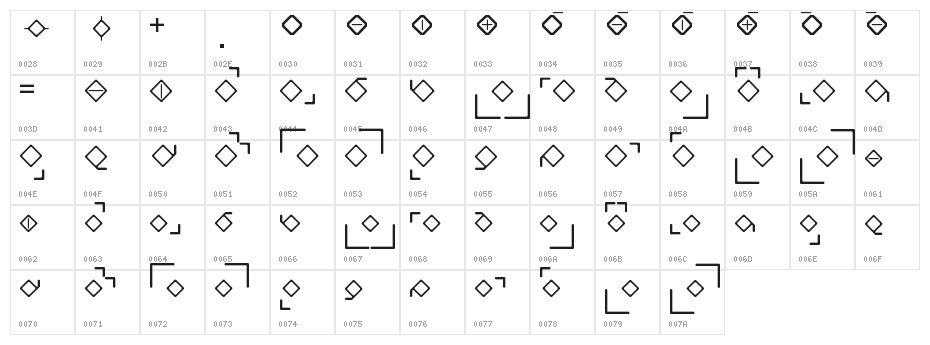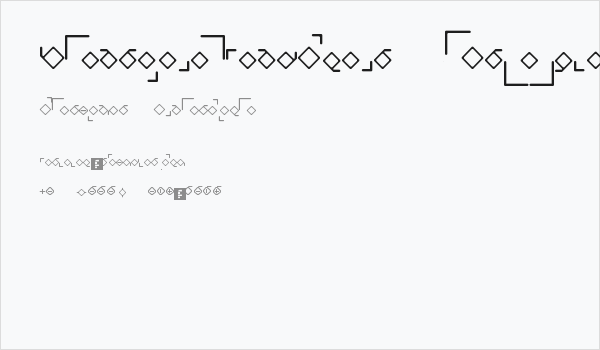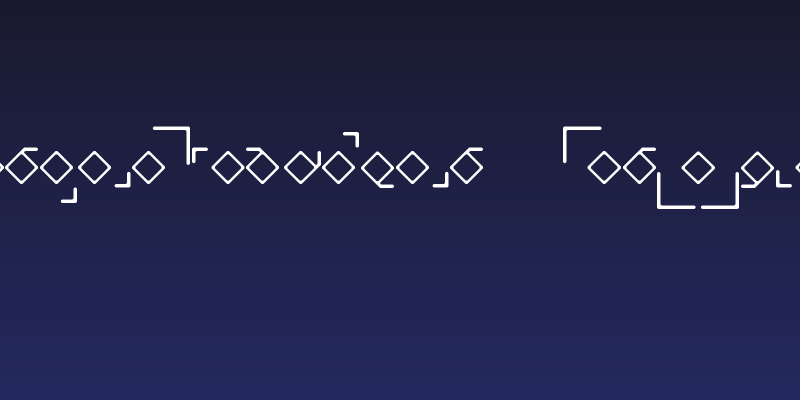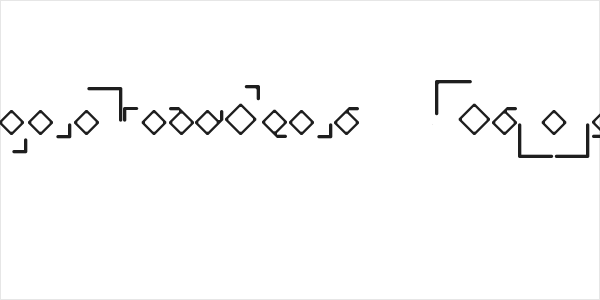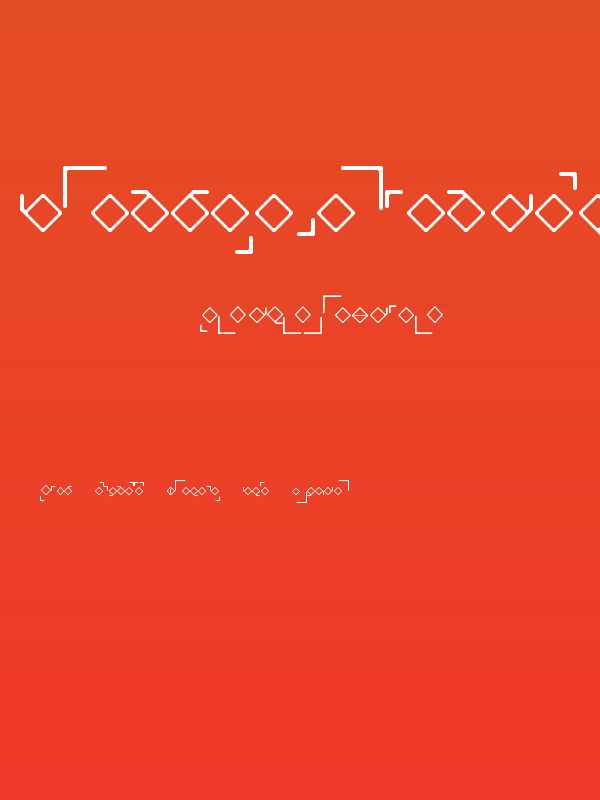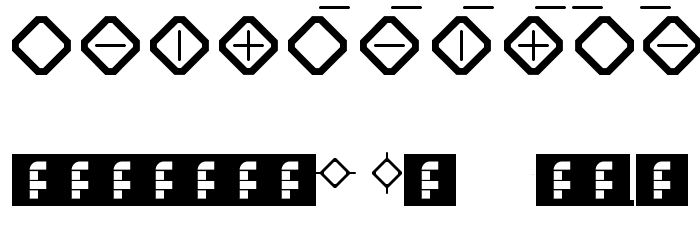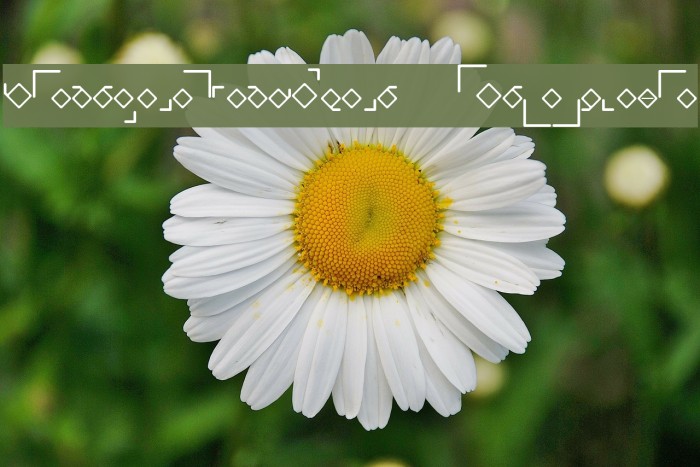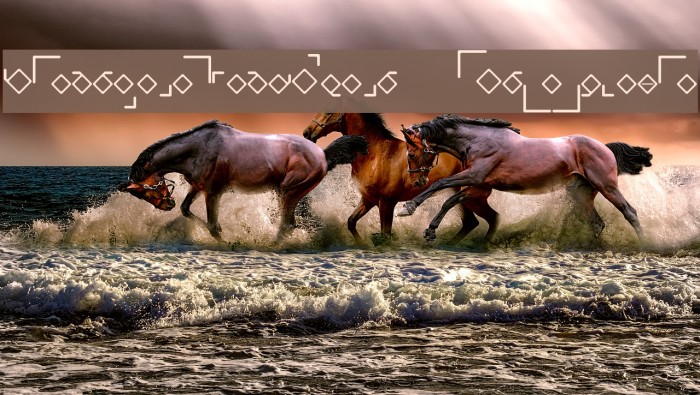
This font features a unique and abstract design, characterized by geometric shapes and lines that form each character. The style is highly decorative, with each letter and symbol constructed from a combination of diamond shapes and angular brackets. The overall appearance is modern and artistic, making it stand out as a display font. The characters are evenly spaced, and the design is consistent across both uppercase and lowercase letters, as well as numbers and special characters. This font is ideal for creative projects where a futuristic or coded aesthetic is desired.
| Use Case | Headlines, Logos, Artistic projects |
| Proposed Projects | Ideal for creative projects such as posters, album covers, or digital art where a futuristic or coded aesthetic is desired. |